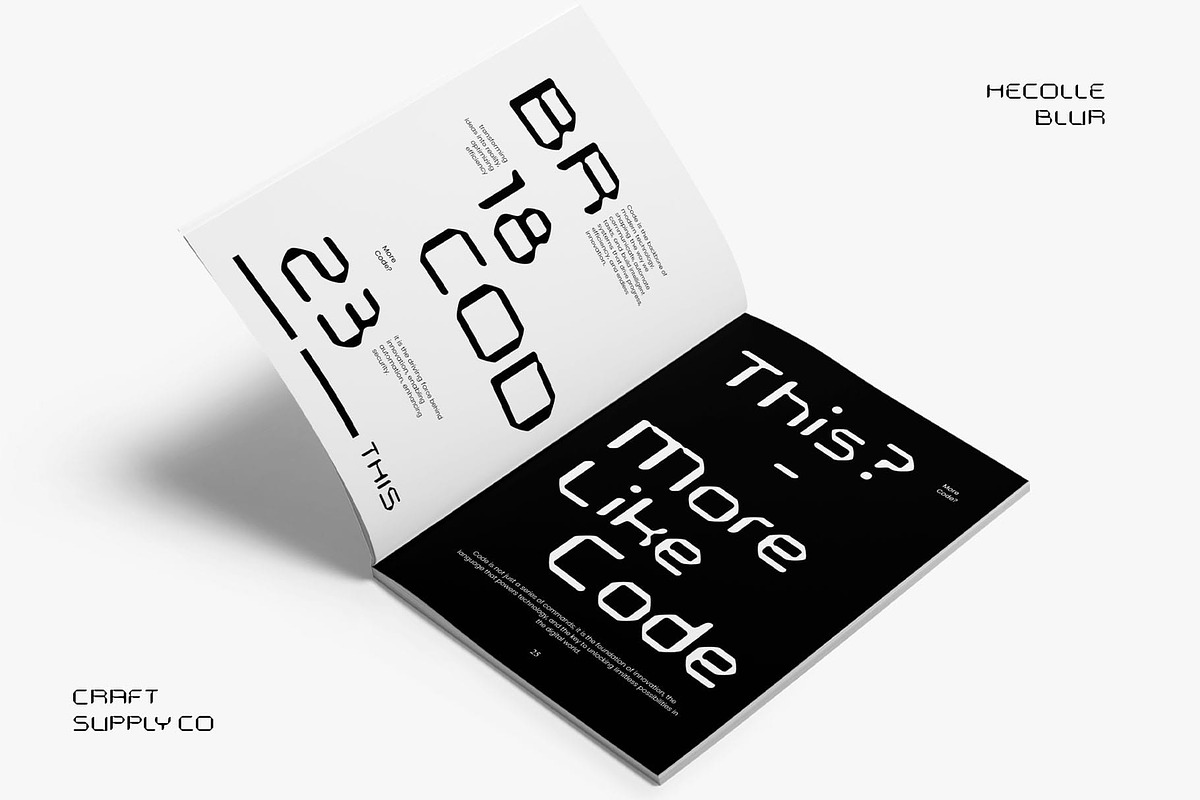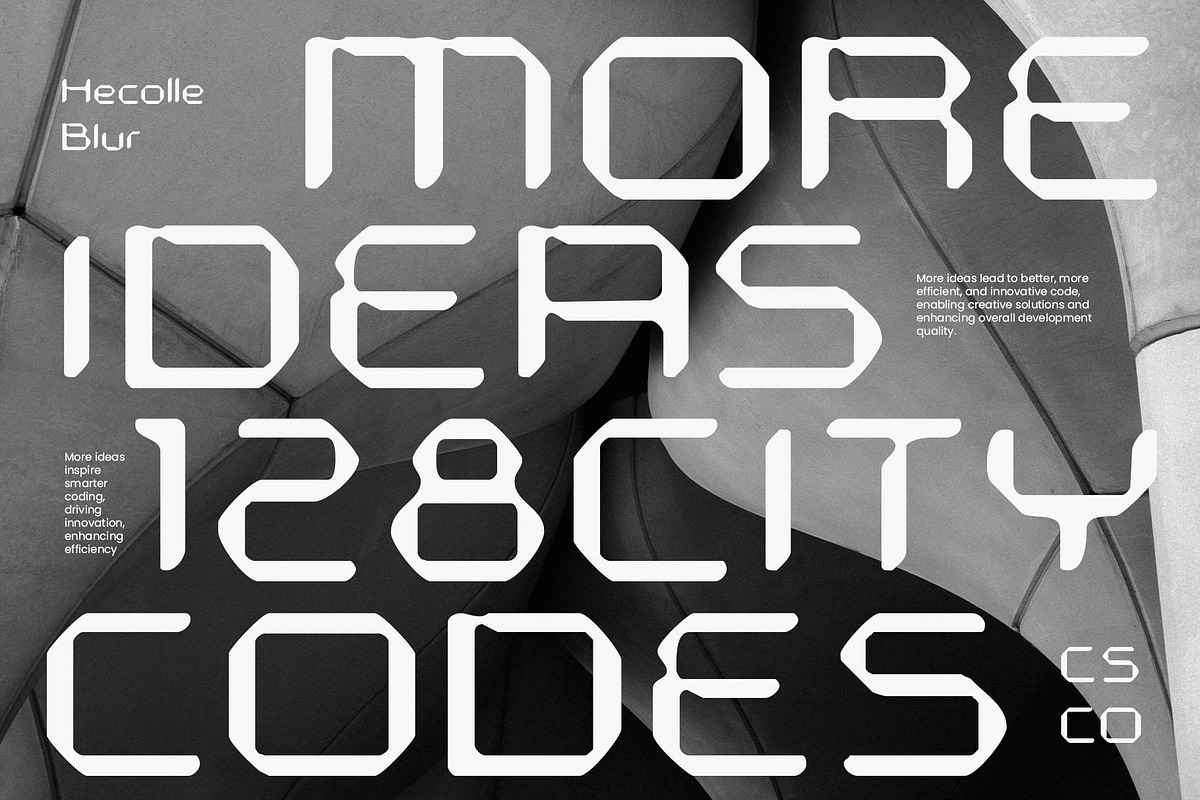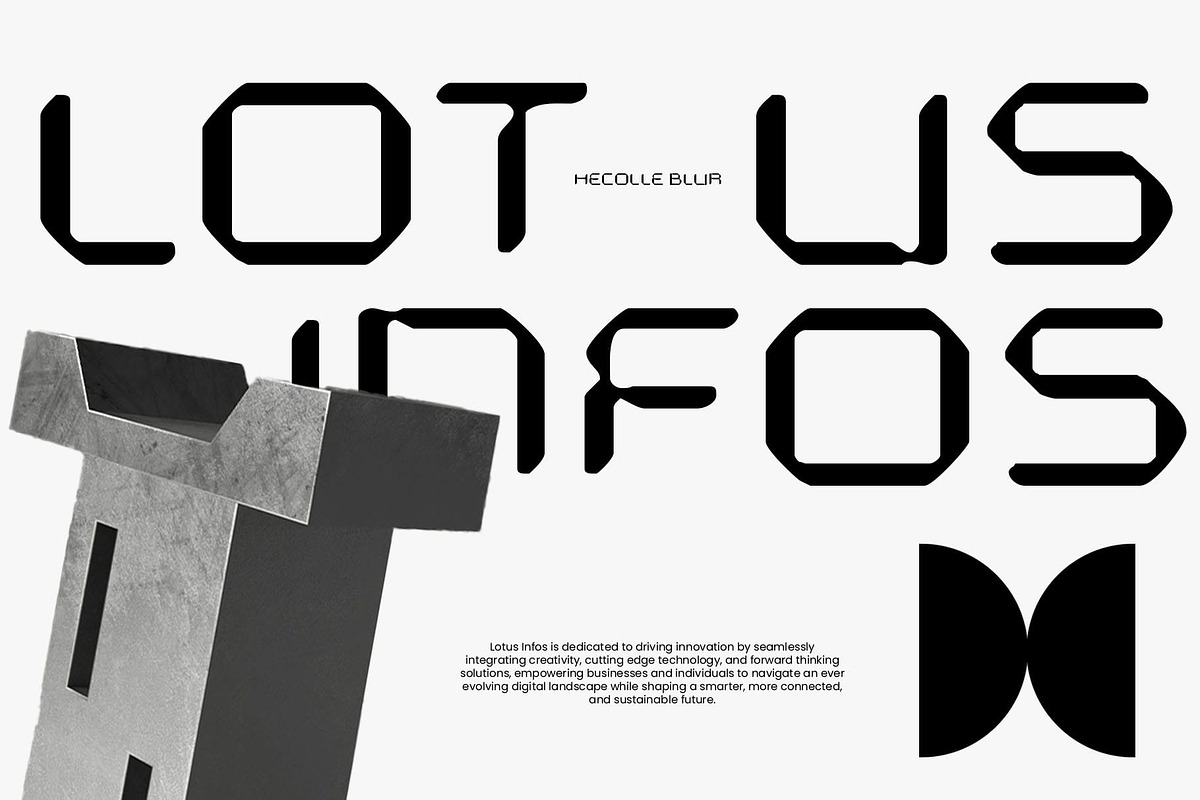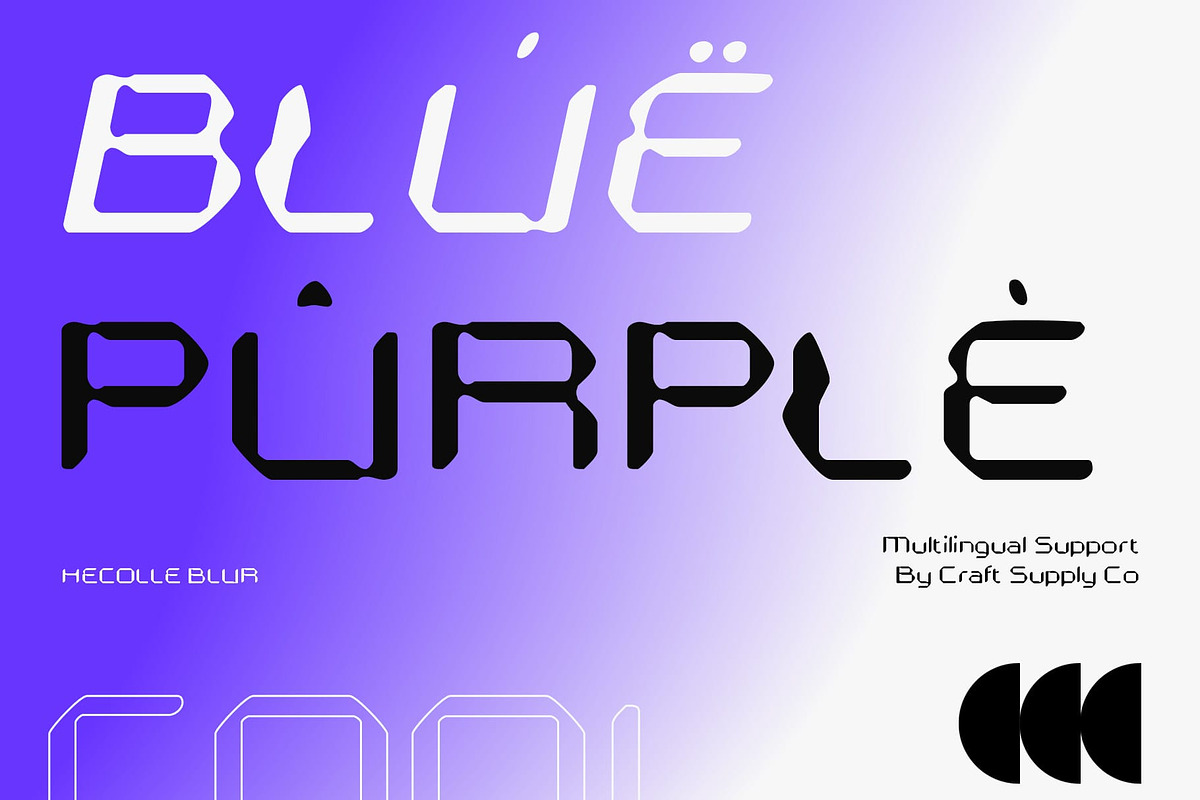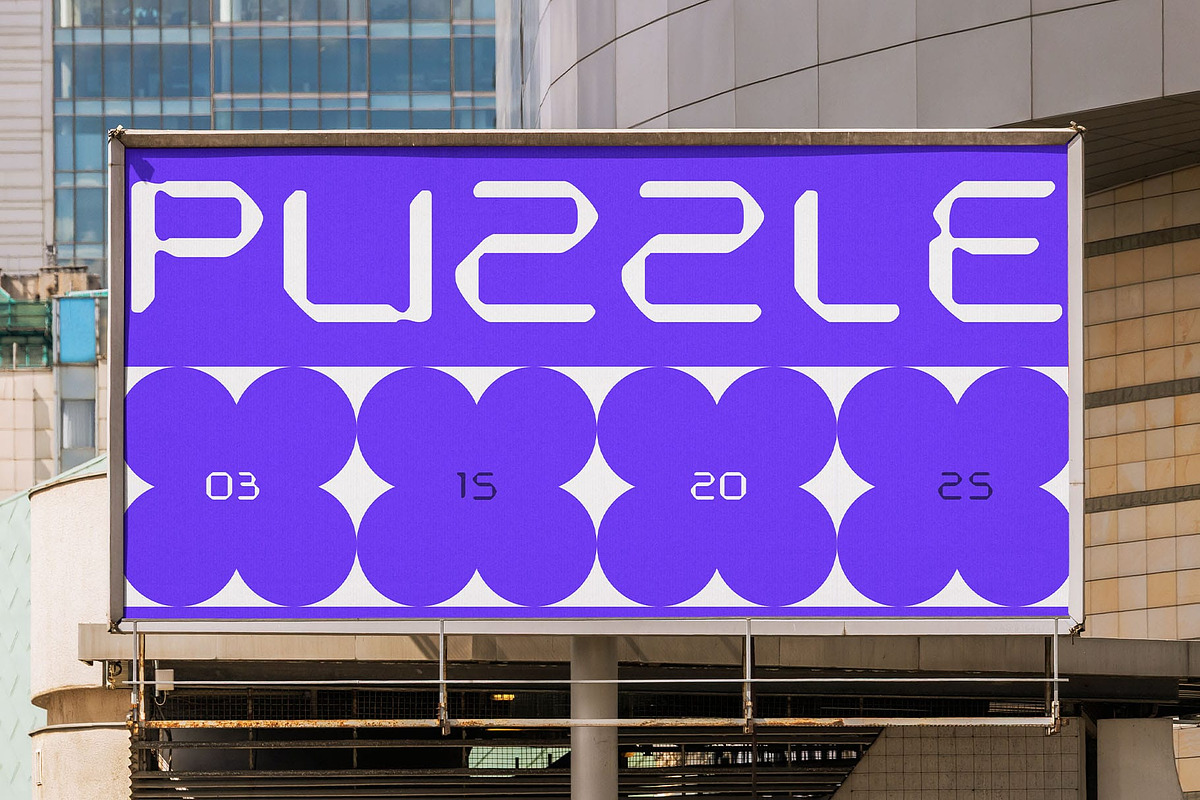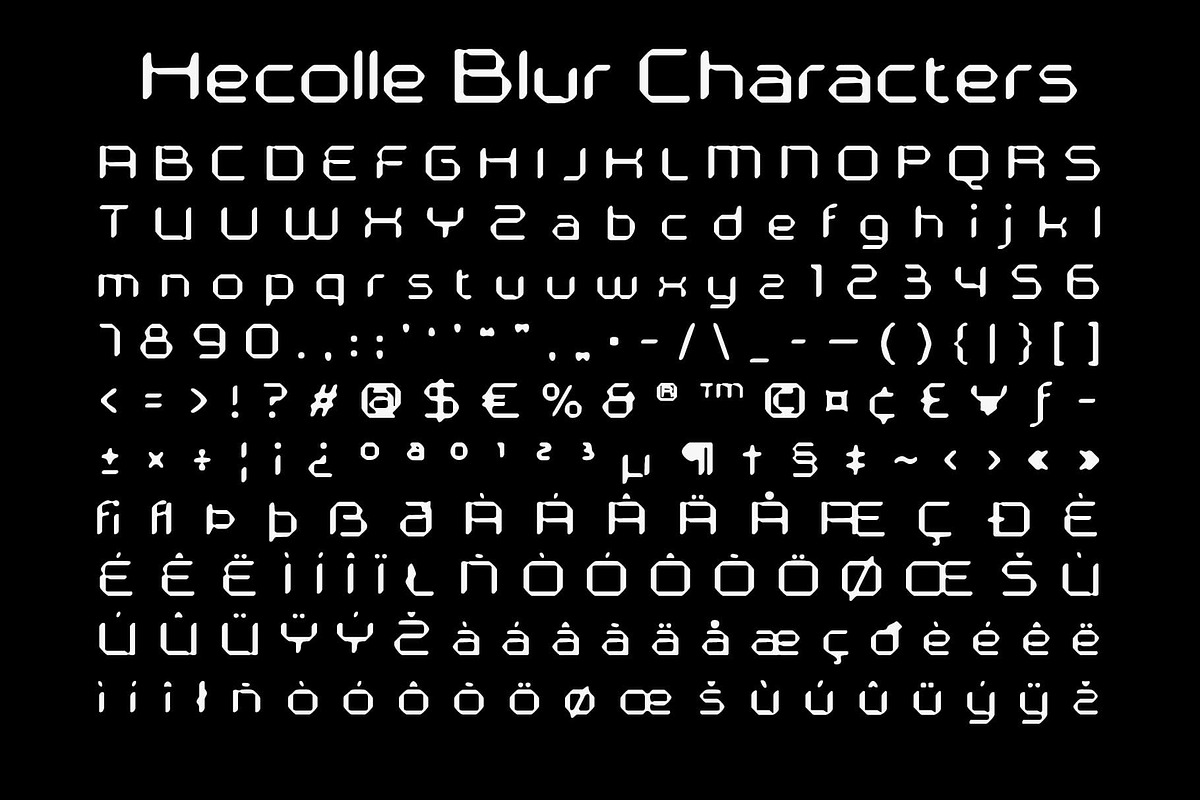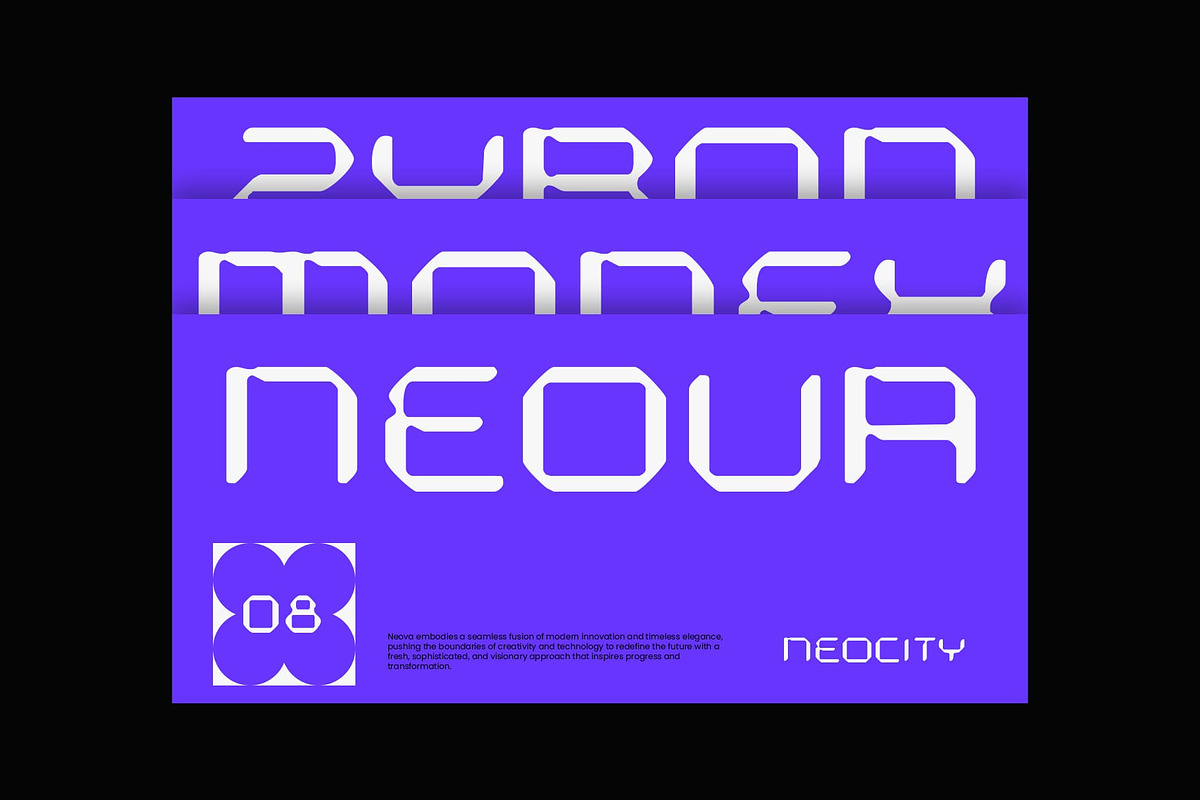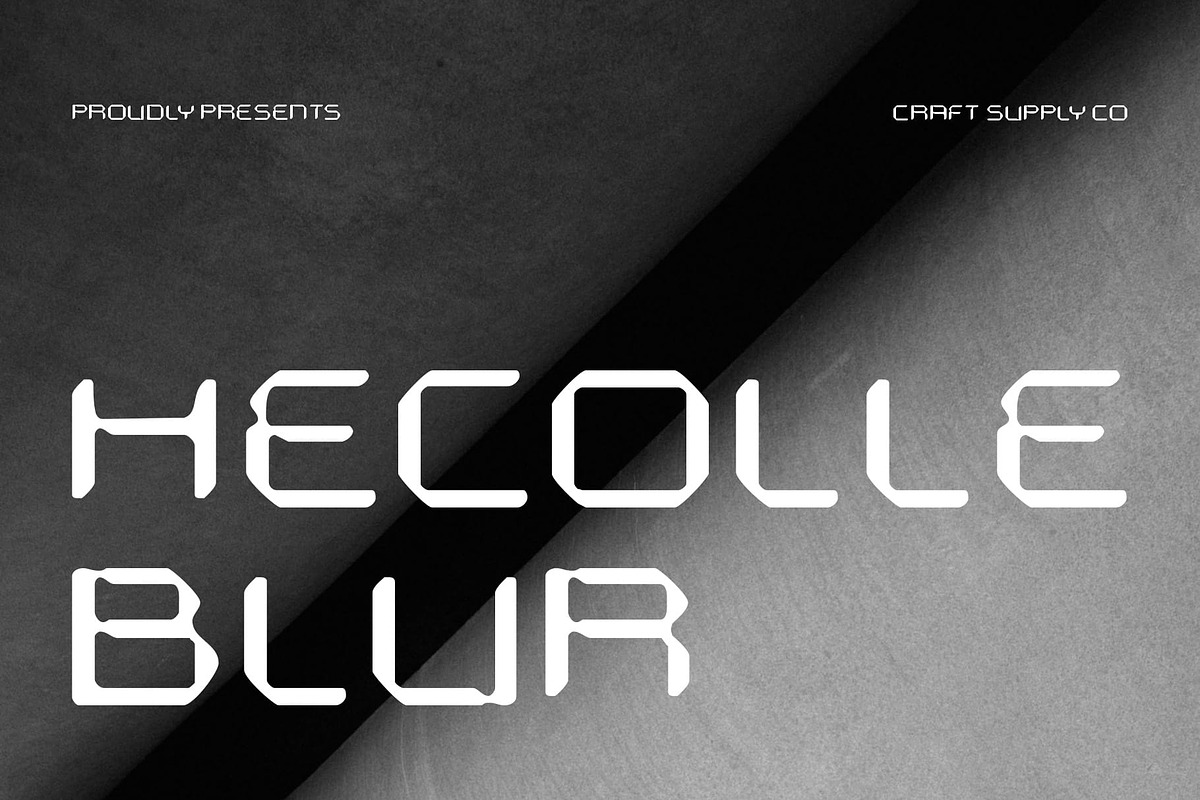
Hecolle Blur
Hecolle Blur – A Futuristic Tech Display Font
A Modern Font with a High-Tech Blur Effect Hecolle Blur is a modern display font that combines sharp geometric letterforms with a sleek blur effect, creating a futuristic and fast-paced aesthetic. Its design is inspired by advanced technology, cybernetic visuals, and digital motion, making it a perfect choice for projects that embrace a cutting-edge and innovative feel.
A Sleek and Dynamic Appearance With its precision-crafted shapes and subtle blur effect, Hecolle Blur exudes a sense of motion and energy. The font’s futuristic style makes it ideal for gaming, tech branding, digital interfaces, and sci-fi-inspired projects. Whether used for logos, posters, or high-impact headlines, it delivers a bold and modern visual statement.
Perfect for Cyberpunk, Gaming, and Digital Branding Designed for technology-driven designs, Hecolle Blur fits seamlessly into cyberpunk aesthetics, esports graphics, futuristic advertising, and digital media. Its combination of geometric structure and distorted blur gives an otherworldly yet highly functional appeal, making it stand out in high-tech and experimental projects.
A Bold Choice for Forward-Thinking Designs Hecolle Blur is more than just a font—it’s a statement of modernity and speed. Whether used in branding, UI/UX design, motion graphics, or tech-related publications, it offers a sleek, innovative, and visually striking presence. Its dynamic style makes it an excellent choice for designers looking to push the boundaries of modern typography.